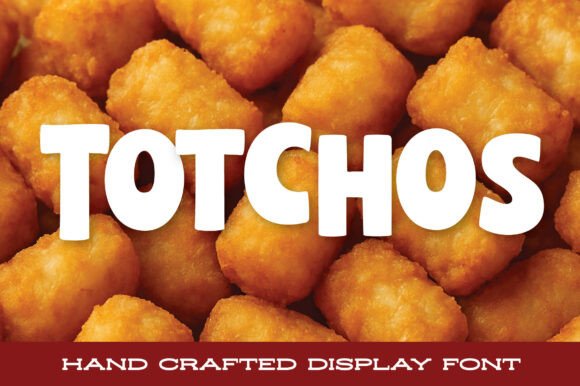
Totchos: A Playful Font with Personality (And How to Use It Without Messing Up)
If you've ever looked at a design and thought, āThis needs more fun,ā then you've probably been searching for something like Totchos. This ultra-chunky display font brings a bold, whimsical energy to any project. Inspired by the comforting, chaotic joy of loaded tater tots, Totchos is plump, rounded, and full of characterāmaking it perfect for brands, menus, stickers, and anything that needs a splash of lighthearted design.
Why Totchos Stands Out
Totchos isnāt just another bold font. Itās designed to be expressive without being overwhelming. The oversized curves and soft edges give it a friendly, approachable look that works well in both digital and print formats. Whether you're branding a kids' snack line or designing a party invitation, Totchos adds a sense of warmth and playfulness that's hard to achieve with more rigid typefaces.
Designers love Totchos for its versatility in casual and creative environments. Itās especially popular in food branding, where it pairs well with vibrant colors and fun illustrations. But like any specialty font, Totchos has its quirksāand if you're not careful, it can easily be misused.
1. Overusing It in Formal or Complex Designs
One of the most common missteps is using Totchos in contexts where clarity and professionalism are key. While it's great for headlines and short text, Totchos can become overwhelming when used for long paragraphs or formal documents. Its chunky nature can reduce readability, especially at smaller sizes.
Better approach: Stick to using Totchos for headlines, logos, or accent text. Pair it with a clean sans-serif font for body copy to maintain readability while still keeping the playful tone.
3. Not Considering File Size and Compatibility
Display fonts like Totchos often come with extra stylistic features that can increase file size. In digital projects, especially websites or mobile apps, this can slow down load times and affect user experience. Additionally, not all platforms render custom fonts consistently.
Better approach: Test Totchos across different devices and platforms before finalizing your design. If performance is a concern, consider optimizing the font files or using web-safe alternatives for critical elements.
4. Pairing It with the Wrong Fonts
Because of its bold, rounded shape, Totchos can clash with fonts that donāt complement its style. For example, pairing it with a thin serif or overly angular typeface can create visual dissonance rather than harmony.
Better approach: Go for contrast in weight but similarity in tone. A simple, rounded sans-serif like Quicksand or Comic Neue can balance Totchos without competing for attention.
- Character set: Make sure it supports the languages or special characters you need.
- Vendor reputation: Download from trusted sources to avoid malware or unauthorized versions.
Realistic Examples of Totchos Done Right
A food truck brand used Totchos for their logo and menu headers, paired with a minimalist sans-serif for descriptions. The contrast created a fun yet functional design that stood out at festivals. Meanwhile, a children's book illustrator used Totchos for title pages and character names, giving the book a lively, approachable feel.
On the flip side, one small business used Totchos for their website navigation and body text. Visitors complained the site was hard to read and looked unprofessional. After switching to a cleaner font for navigation and reserving Totchos for headlines, bounce rates dropped and engagement improved.
How to Get the Most Out of Totchos
Think of Totchos like a bold seasoningāit enhances the flavor, but too much can overpower the dish. Use it where you want to grab attention: headlines, logos, social media graphics, or product packaging. Avoid using it in places where clarity and consistency are more important than character.
Also, donāt be afraid to adjust tracking or spacing. Because of its chunky nature, Totchos sometimes benefits from slightly increased letter spacing to avoid looking cramped, especially at smaller sizes.
Final Thoughts: Totchos Can Be Your Secret Ingredient
When used thoughtfully, Totchos brings a level of charm and warmth that few other fonts can match. Itās not just about being boldāitās about being bold in the right way. Avoid common pitfalls like overuse, poor pairing, and ignoring licensing, and youāll be well on your way to creating designs that are both fun and functional.
Whether you're designing a snack brand, a birthday card, or a themed app, Totchos can help you serve up a design that feels fresh, friendly, and full of flavorājust donāt forget to pair it with the right side dishes.